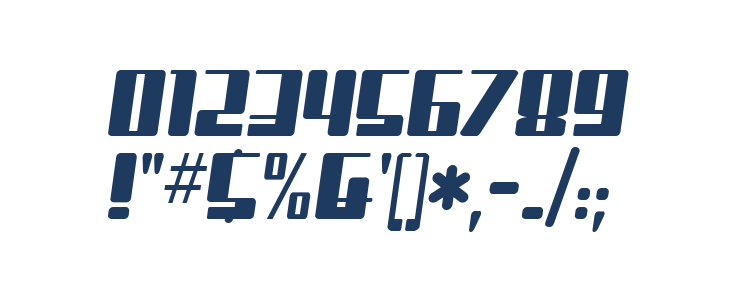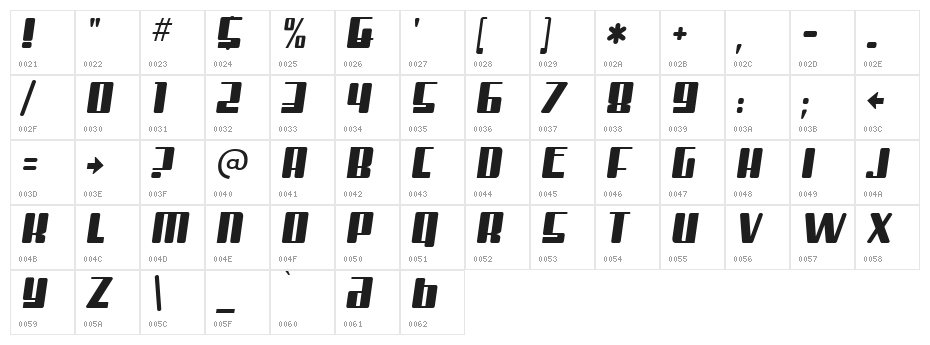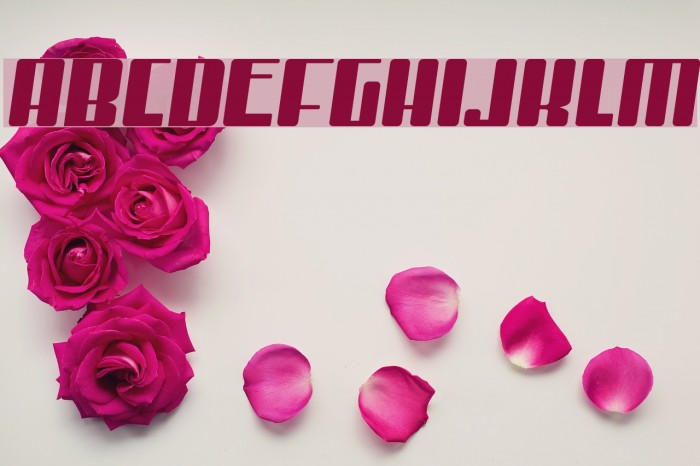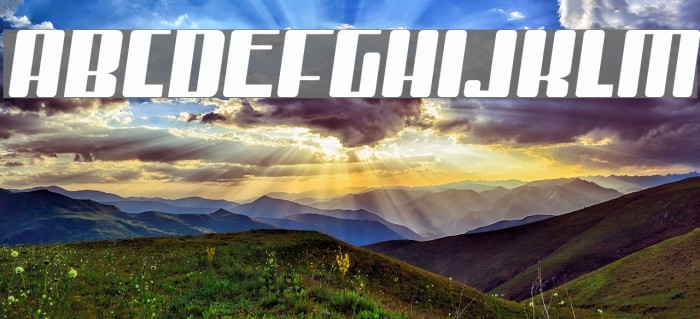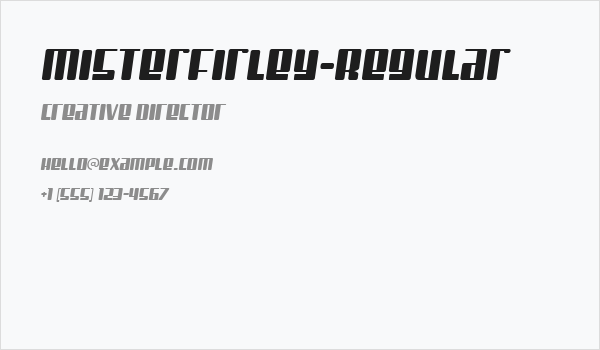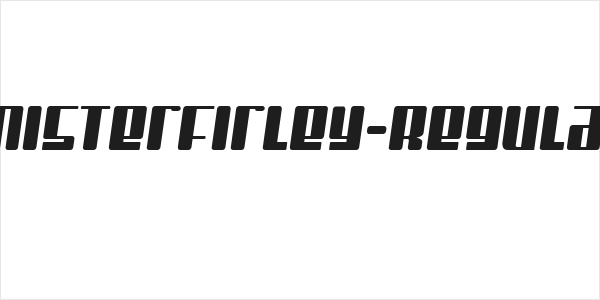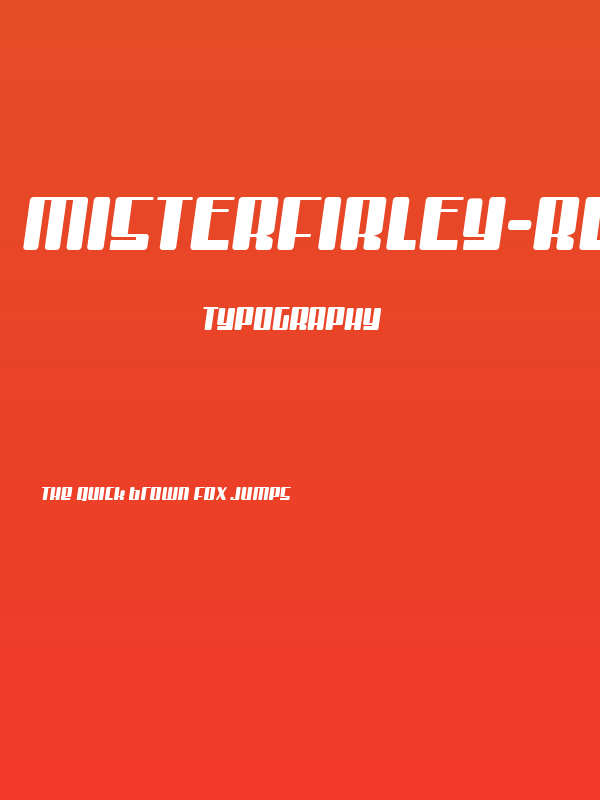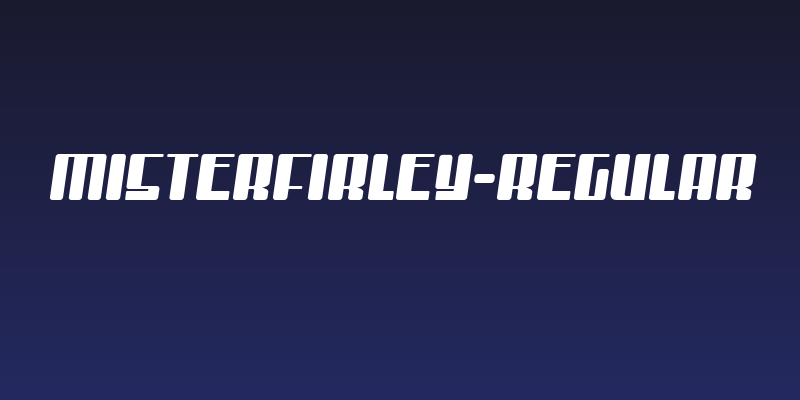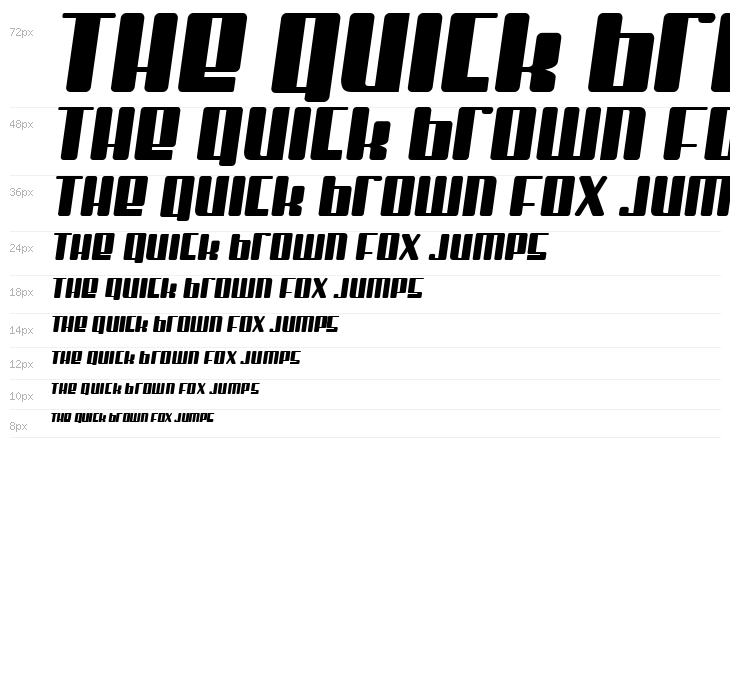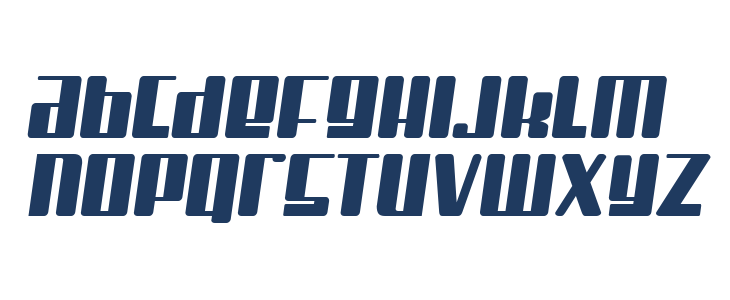
MisterFirley-Regular Font
MisterFirley-Regular Description
This font features a bold, modern design with a strong geometric influence. The characters are slightly condensed, giving it a compact appearance. The strokes are thick and consistent, providing a uniform look across all letters and numbers. The uppercase and lowercase letters maintain a cohesive style, with sharp angles and clean lines. The numerals are equally bold, ensuring readability and impact. Special characters are designed to match the overall aesthetic, making this font suitable for various applications where a contemporary and assertive look is desired.